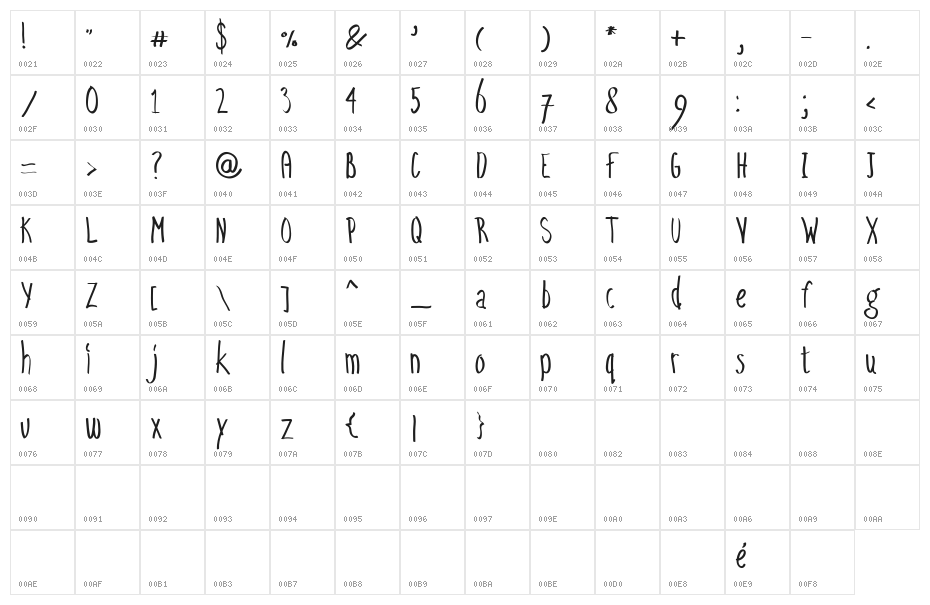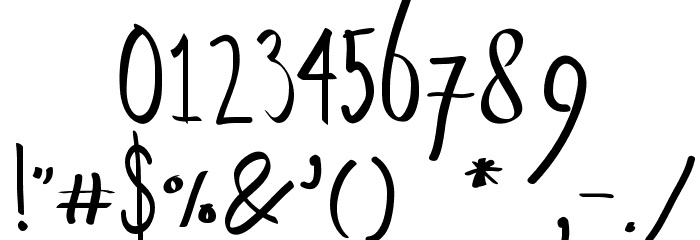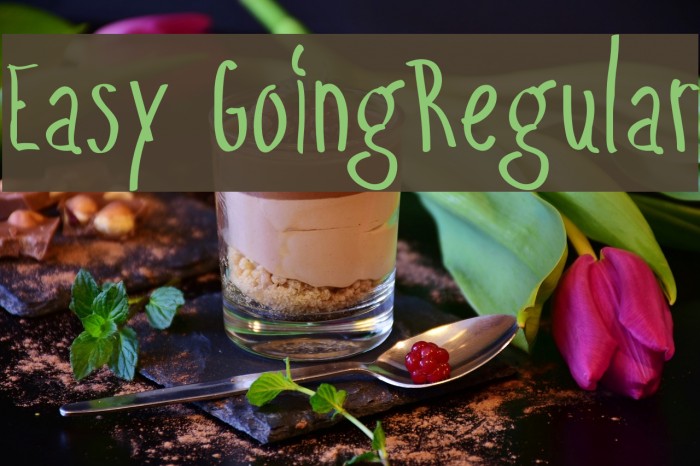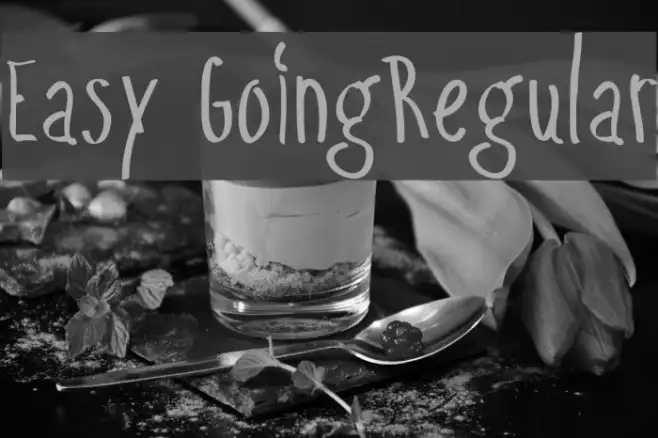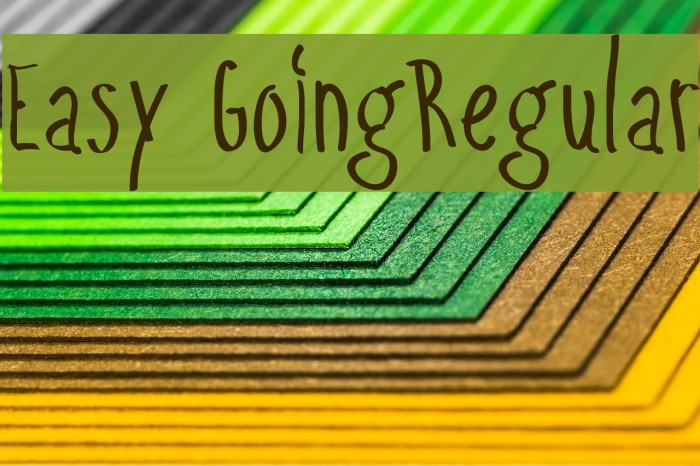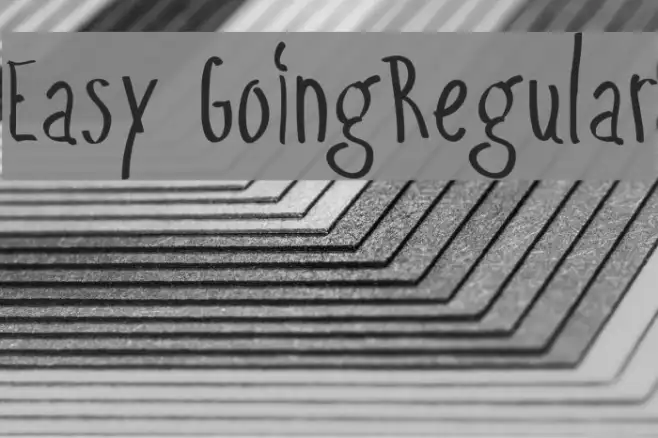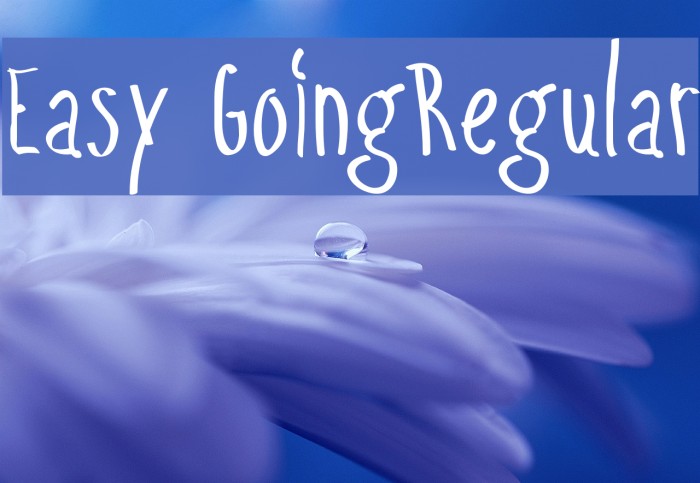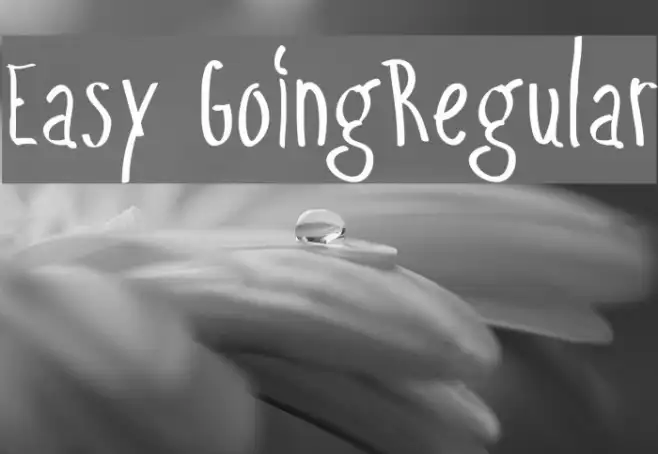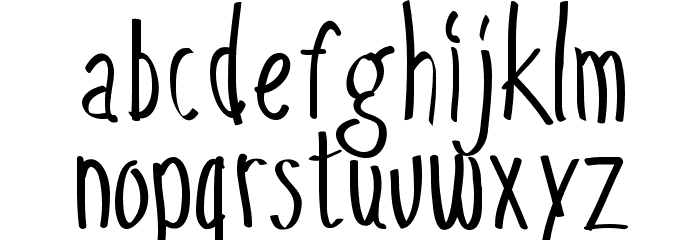
Easy GoingRegular Font
Easy GoingRegular Description
This font exudes a playful and casual vibe with its hand-drawn appearance. The letters are slightly irregular, giving it a whimsical and approachable feel. The strokes are uneven, adding to the charm and uniqueness of the typeface. It features a mix of tall, narrow characters with a slight slant, which enhances its informal style. The numbers and special characters maintain the same playful aesthetic, making it versatile for creative projects. Its overall look is friendly and inviting, perfect for designs that aim to convey warmth and personality.